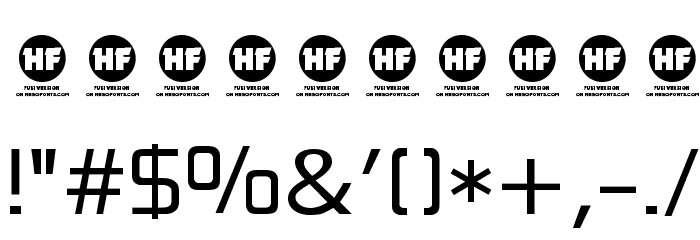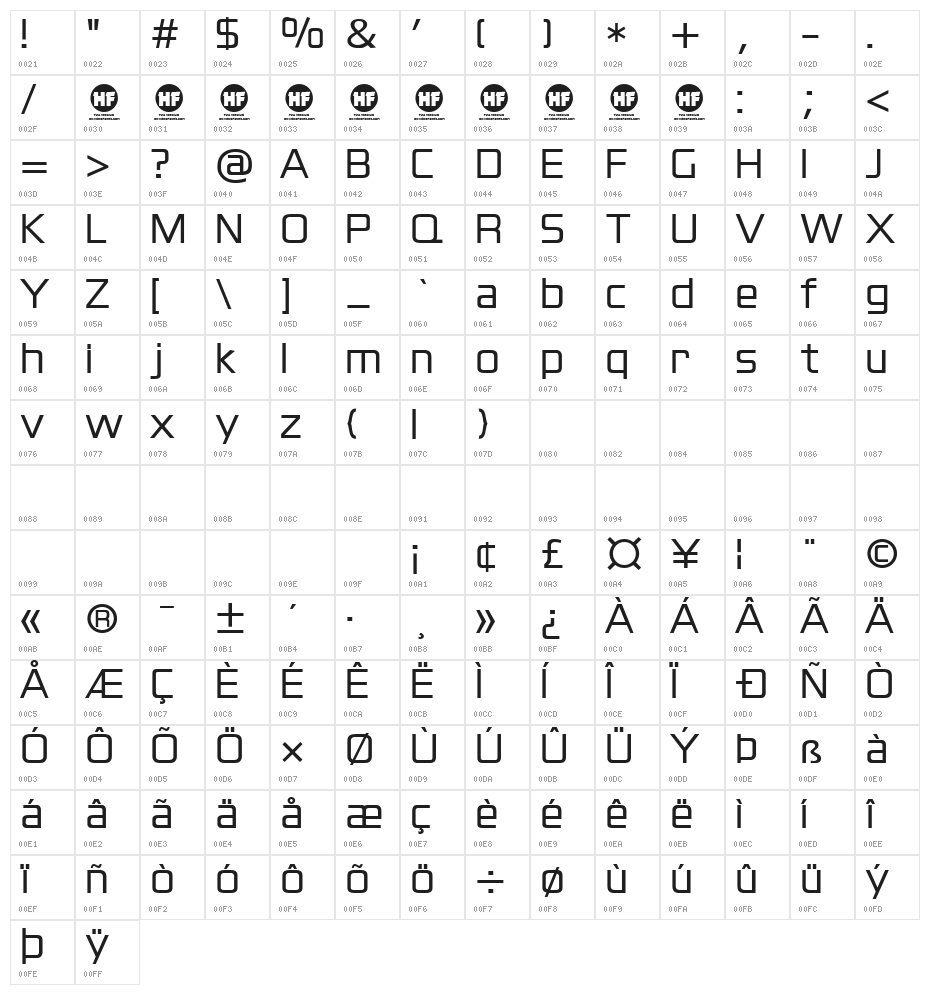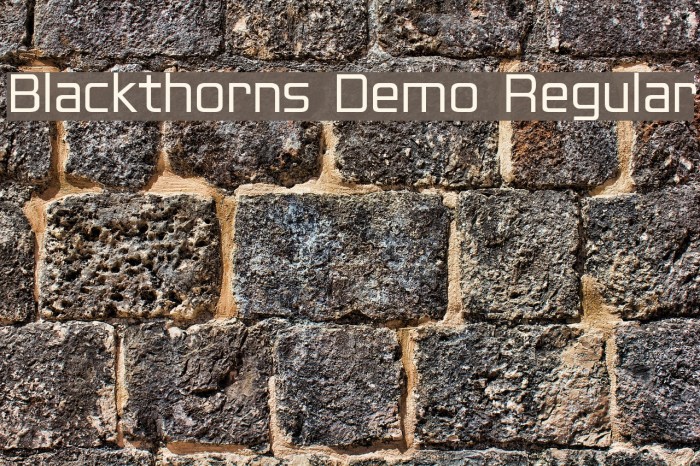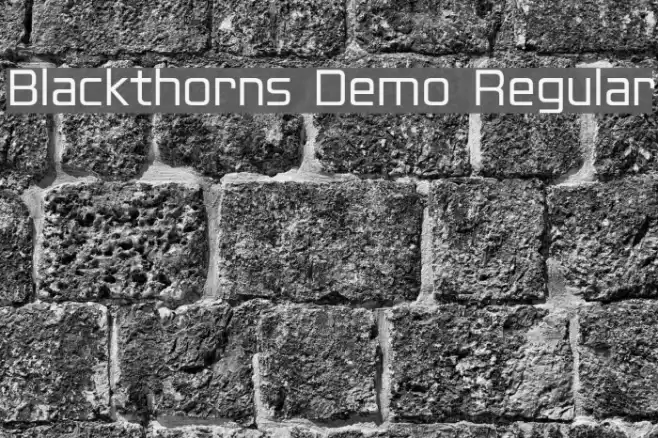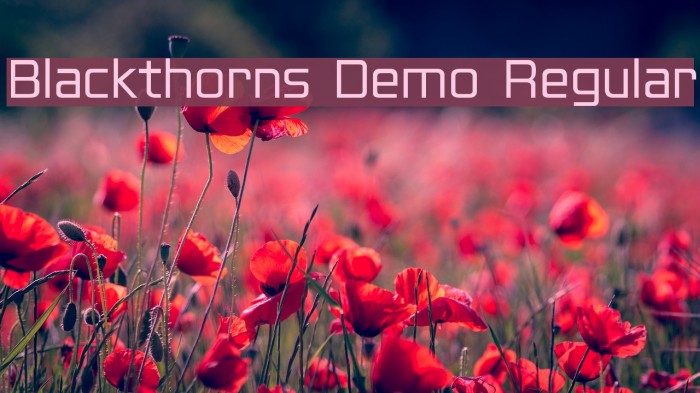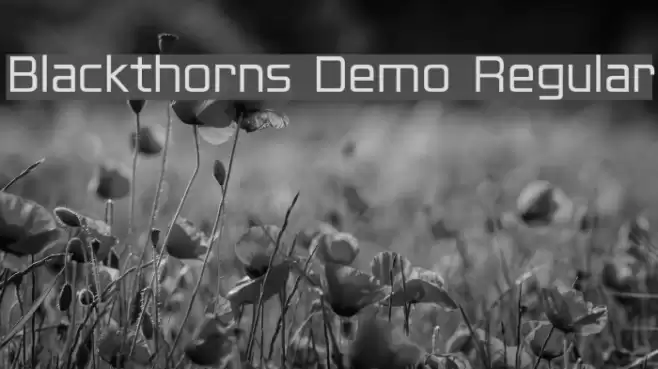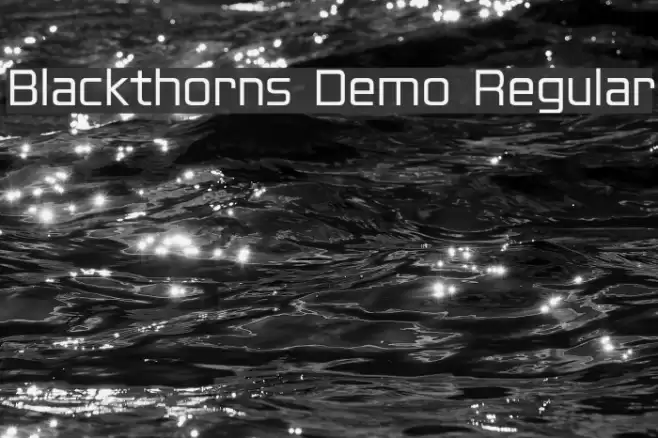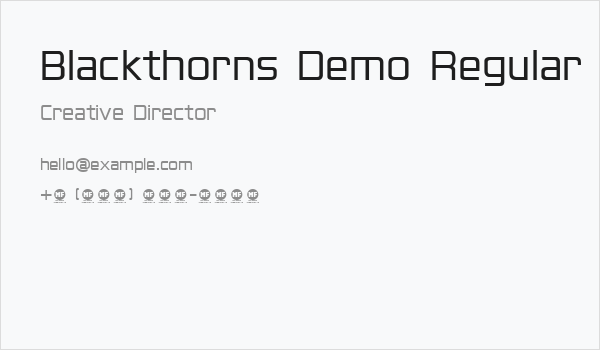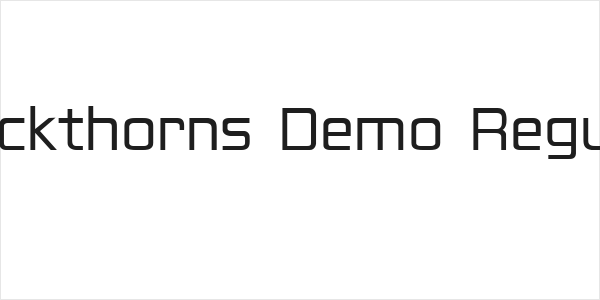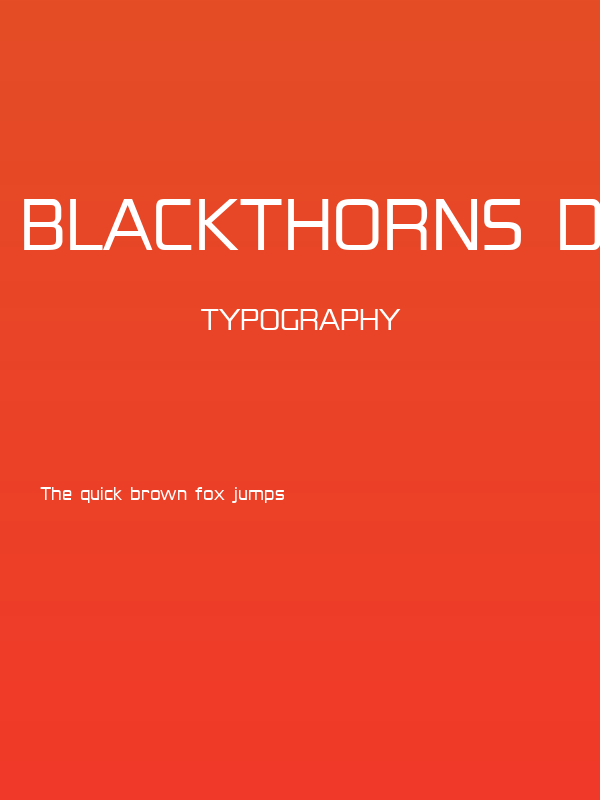
Blackthorns Demo Regular Font
Blackthorns Demo Regular Description
This font features a modern and sleek design with clean lines and a geometric structure. The uppercase and lowercase letters are uniform in width, giving it a monospaced appearance, though it is not strictly monospaced. The characters are slightly condensed, which adds to its contemporary feel. The font maintains a consistent stroke width throughout, resulting in low contrast. Its simplicity and clarity make it highly legible, suitable for digital and print media. The special characters are designed with the same attention to detail, ensuring a cohesive look across all glyphs.
| Proposed Projects | Ideal for tech branding, digital interfaces, and minimalist design projects. |